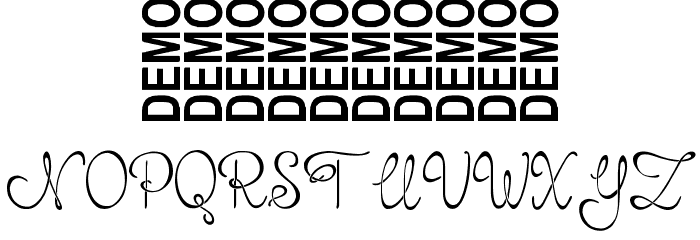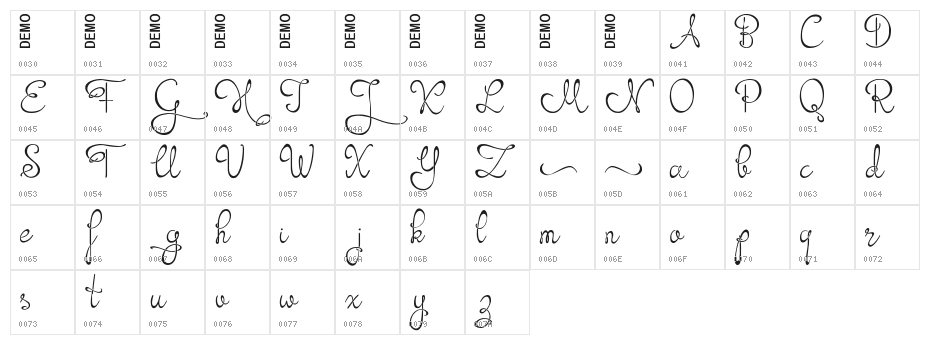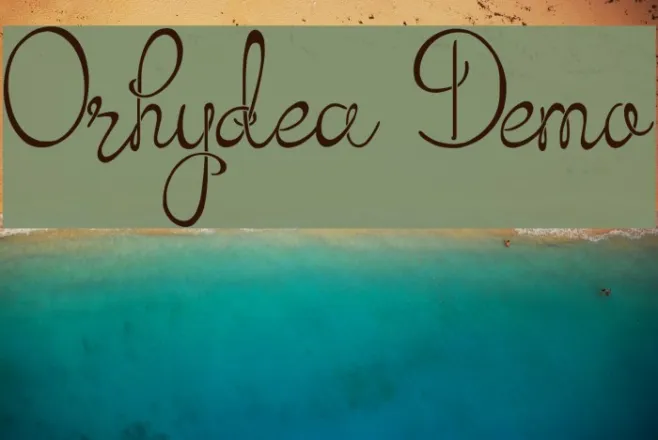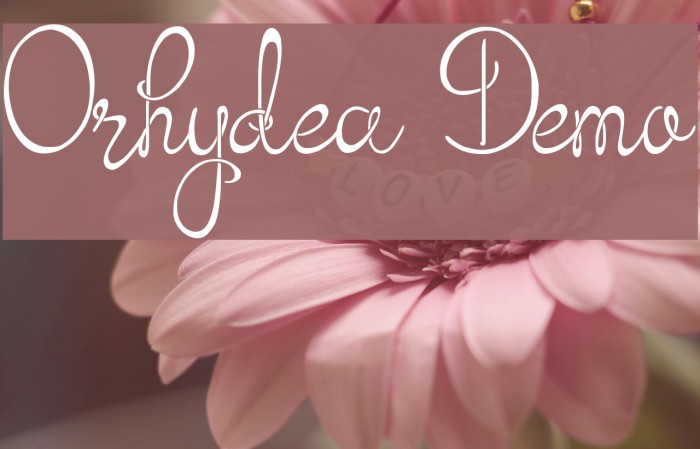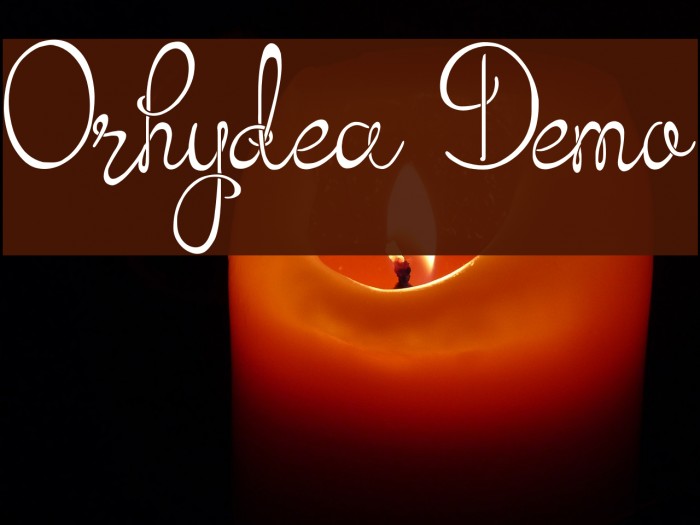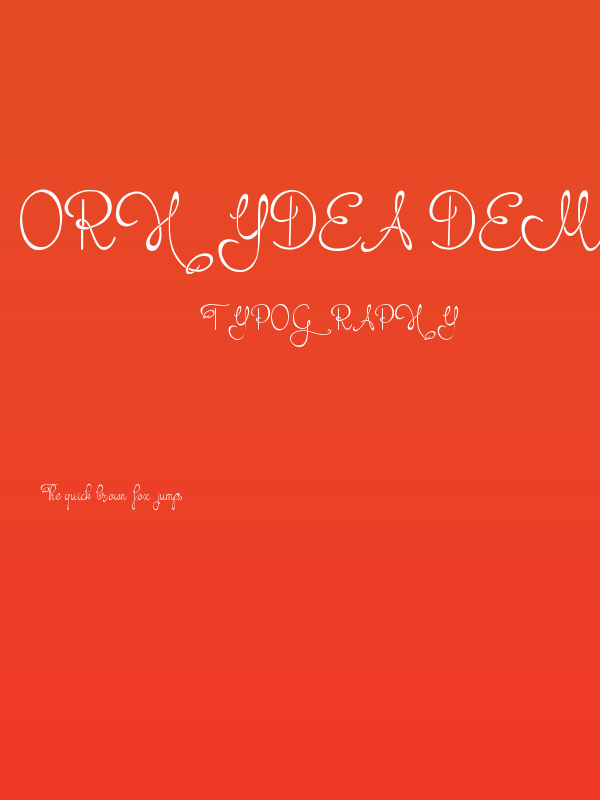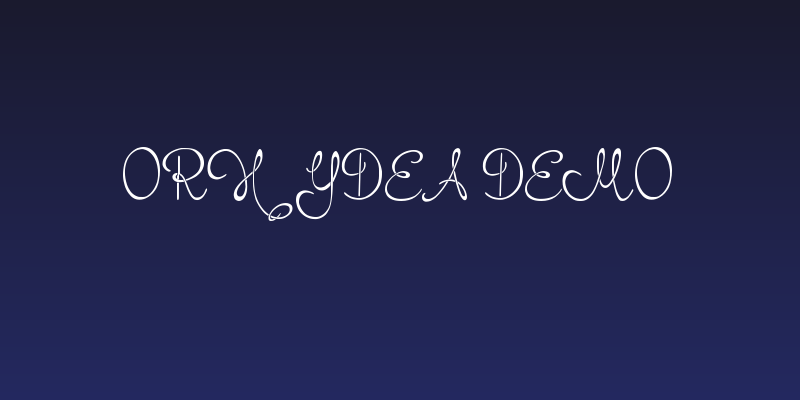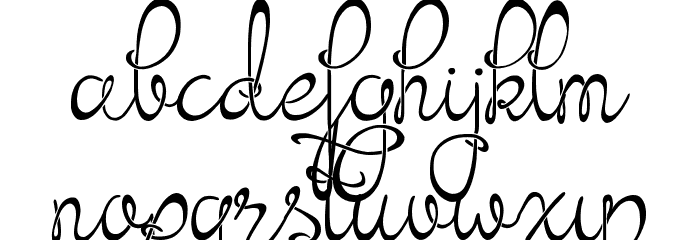
Orhydea Demo Font
Orhydea Demo Description
This font features an elegant and decorative script style, characterized by its flowing, interconnected letterforms. The uppercase letters are ornate with intricate swirls and loops, giving a sense of sophistication and artistry. The lowercase letters maintain a consistent style, with smooth curves and a slightly whimsical touch. The font's overall appearance is delicate yet impactful, making it suitable for creative and expressive designs. It includes a full set of uppercase and lowercase letters, numerals, and a selection of special characters, all maintaining the same decorative flair.
| Use Case | Logos, Invitations, Decorative Text |
| Proposed Projects | Ideal for wedding invitations, greeting cards, branding projects, and any design requiring a touch of elegance and sophistication. |